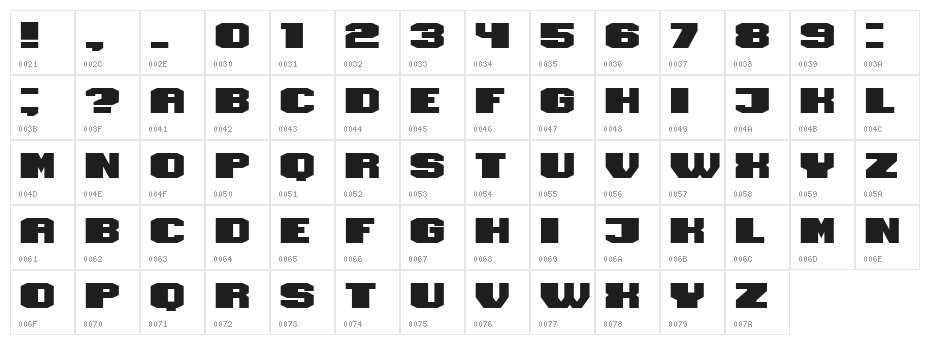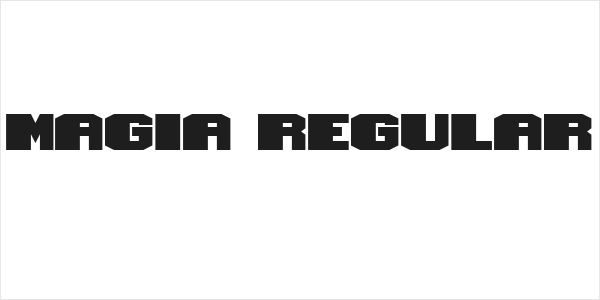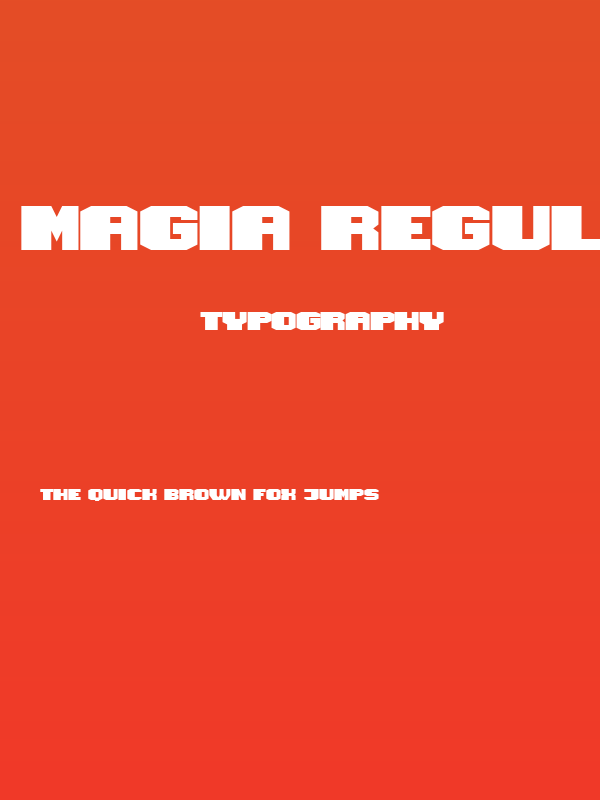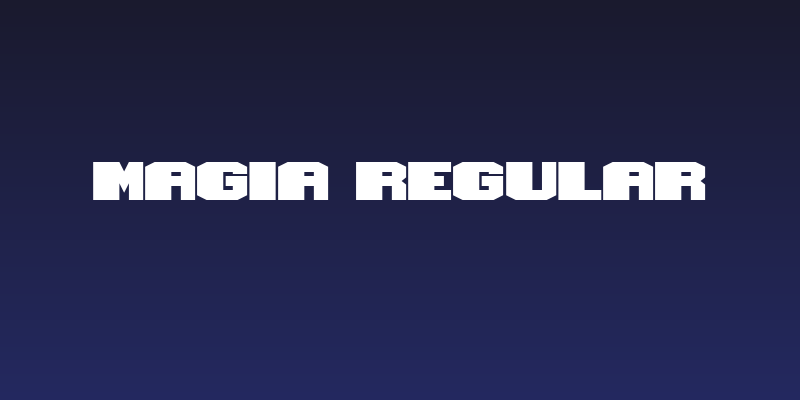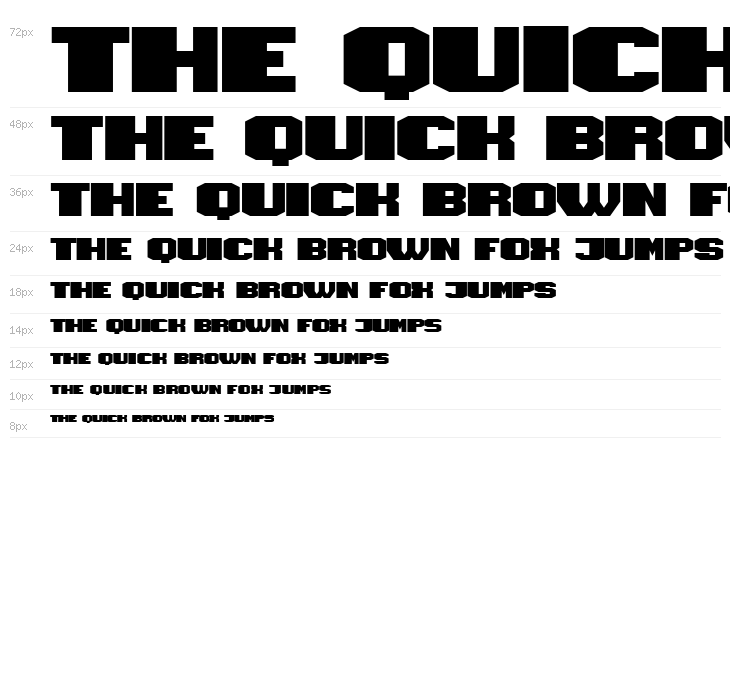
Magia Regular Font
Magia Regular Description
This font features a bold and geometric design with a strong presence. The characters are blocky and robust, exhibiting a modern and industrial feel. Each letter is crafted with sharp angles and a uniform thickness, creating a cohesive and impactful look. The numbers and special characters follow the same design principles, ensuring consistency across all elements. This font is ideal for making a statement, with its thick strokes and solid appearance. It is particularly suitable for projects that require a bold and assertive typeface.
| Proposed Projects | Ideal for branding, posters, headlines, and any design requiring a strong, impactful typeface. |